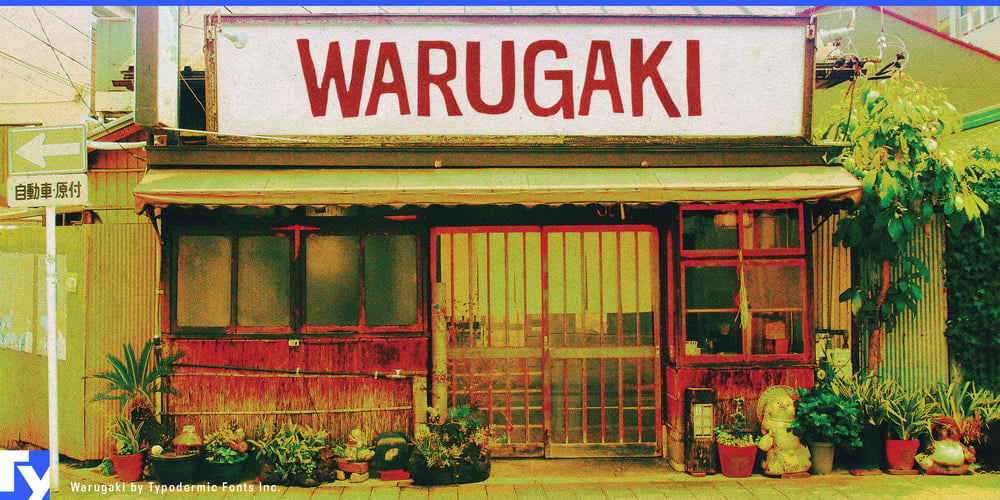
Warugaki Font Family was designed by Ray Larabie and published by Typodermic. Warugaki contains 1 styles and family package options. Unleash the untamed spirit of Warugaki—a typeface that shatters conventions and embraces the raw energy of mid-century Japanese aesthetics. This is a rebellion against the predictable, a celebration of organic imperfection that demands attention and sparks creativity.Warugaki’s bold letterforms emerge from a meticulous subtractive process, each character carved with the authenticity of handcrafted silk screens or wax-resist dyeing. The result? A compact, high-impact typeface that pulsates with the vitality of street art while maintaining a sophisticated edge. It’s a visual oxymoron—carefully crafted chaos that speaks volumes in headlines and display text. But Warugaki’s true power lies in its adaptability. With bespoke letter combinations and alternates nestled in the lowercase, this typeface becomes a creative playground. Every word you craft is a unique expression, ensuring your designs stand out in a sea of uniformity. It’s not just about writing; it’s about creating visual poetry that resonates with raw, unbridled energy.This typographic maverick doesn’t just cross borders—it obliterates them. Warugaki fluently expresses itself across an impressive linguistic spectrum, encompassing most Latin-based European languages, Vietnamese, Greek, and a wide range of Cyrillic-based writing systems. From the bustling streets of Hanoi to the sun-drenched plazas of Madrid, from the snowy expanses of Russia to the vibrant markets of Nigeria, Warugaki speaks the language of bold expression.Why conform to the mundane when you can revolutionize your designs with Warugaki? It’s more than a typeface; it’s a creative catalyst that will propel your work into uncharted territory. Embrace the unexpected, celebrate imperfection, and let Warugaki be the voice of your most daring ideas. Your designs will never whisper again—with Warugaki, they’ll roar.